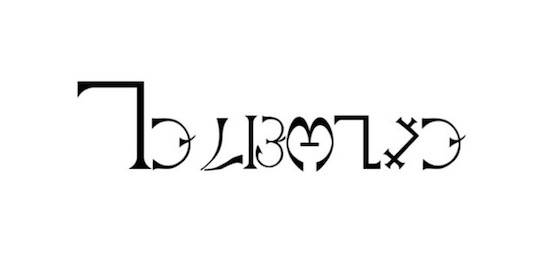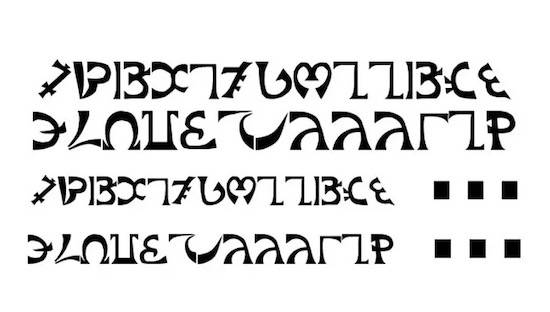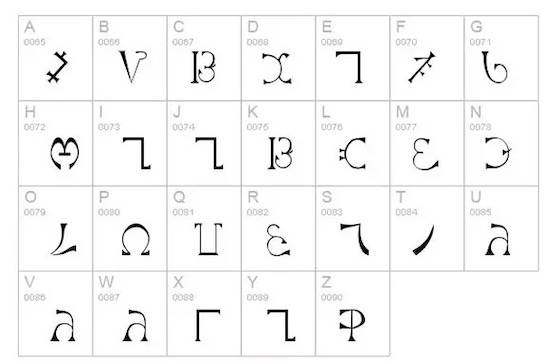
Hello Guys! Today Fontsio comes back with another amazing dingbats font named Enochian font. The Enochian font was carefully designed and released during 1992 and it is mostly designed and used for private design and graphic projects.
Really, these characters of this font had borned since the sixteenth century and it was used by Sir Edward Kelley and Dr. John Dee in their contacting.
Enochian font
It comes with large language support over one hundred languages. The Enochian font offers extensive OpenType and Truetype features. However, it has support only lowercase and uppercase. This Enochian font has everything that a designer urge to have in his design campaign.
The Enochian font is a unique fancy typeface with a which gives a retro style but still with a luxury touch to your projects. The Enochian font is to use for any kind of design such as creating logos, stickers, unique emblems, banner ads, labels, branding projects, advertisements, and many other places.